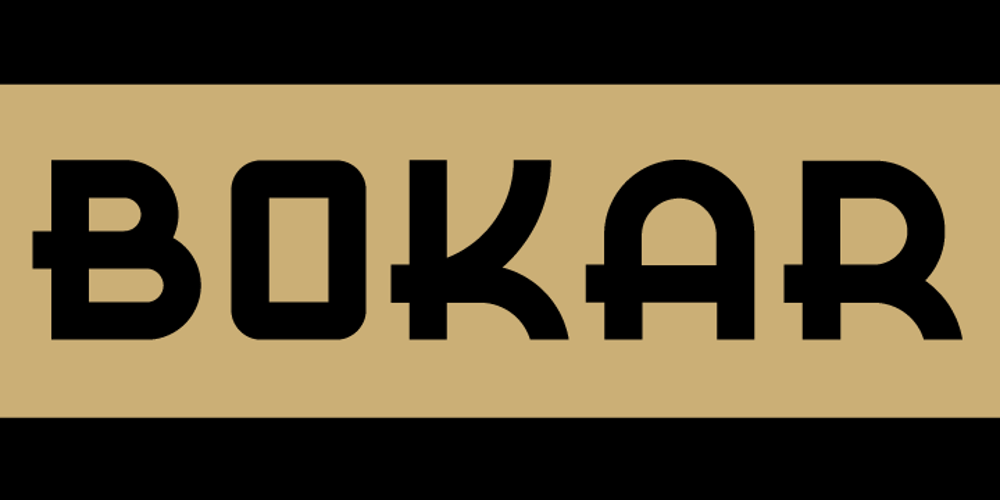
Bokar Font Family was designed by Daniel Pelavin and published by Pelavin Fonts. Bokar contains 1 styles and family package options. I am inspired by imagery that technology has rendered obsolete. I treasure anachronistic packaging and design which has somehow evaded obliteration by focus groups.I especially admire the packaging for A&P coffee brands Eight O’Clock, Red Circle and Bokar whose eccentric yet elegant typography harkens back to an earlier, less complicated era. The font Bokar is my nod of appreciation to those robust and full-bodied blends spared from the bland, tasteless scourge of corporate branding.